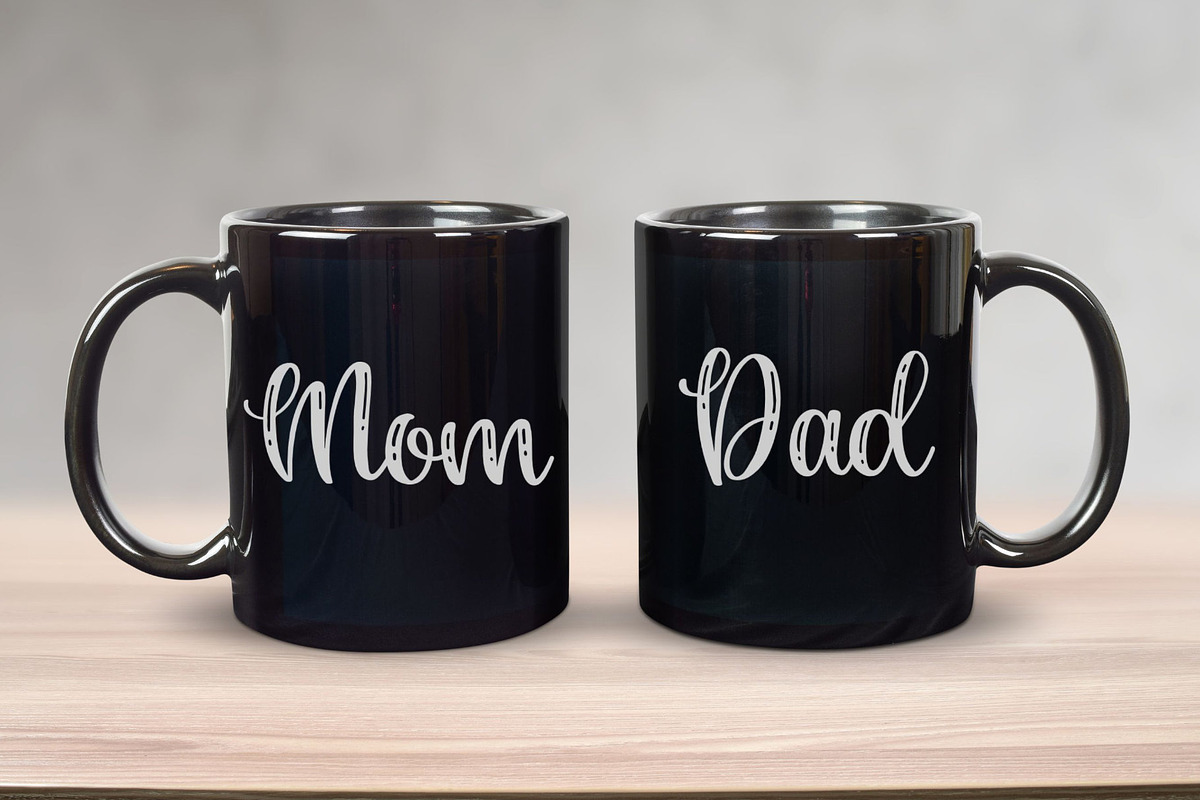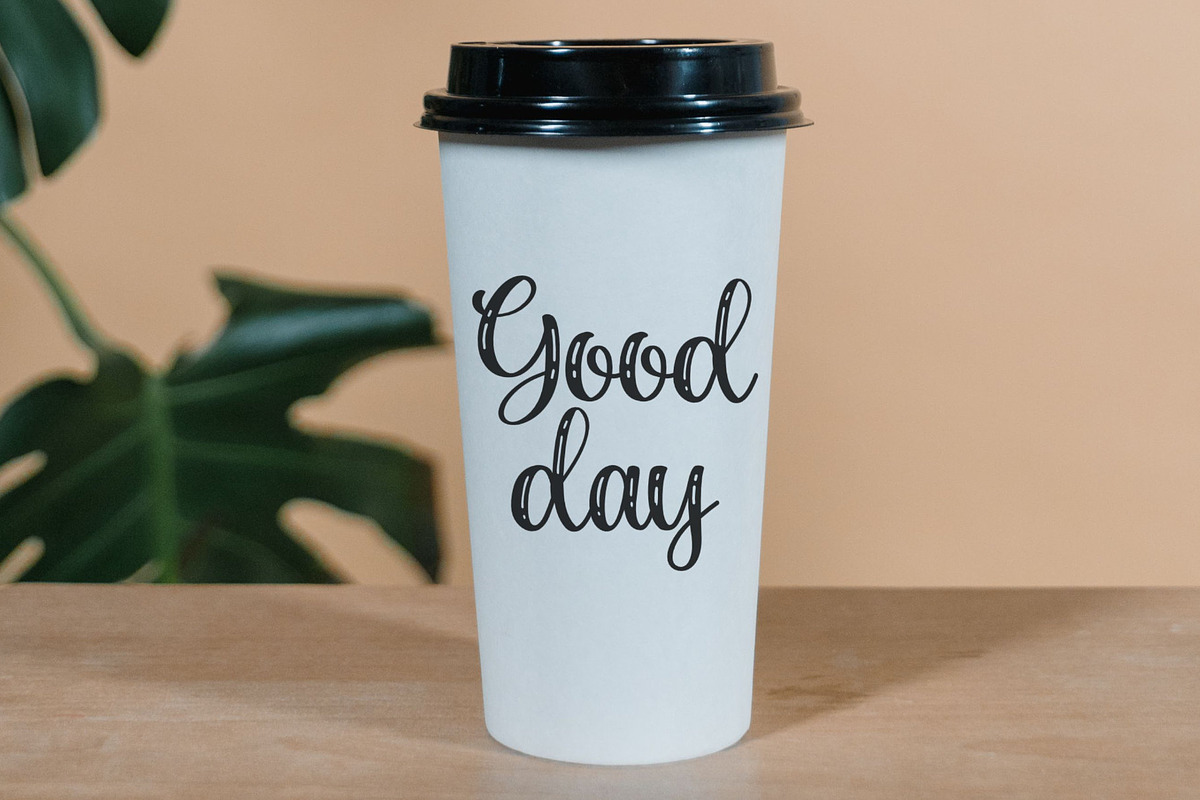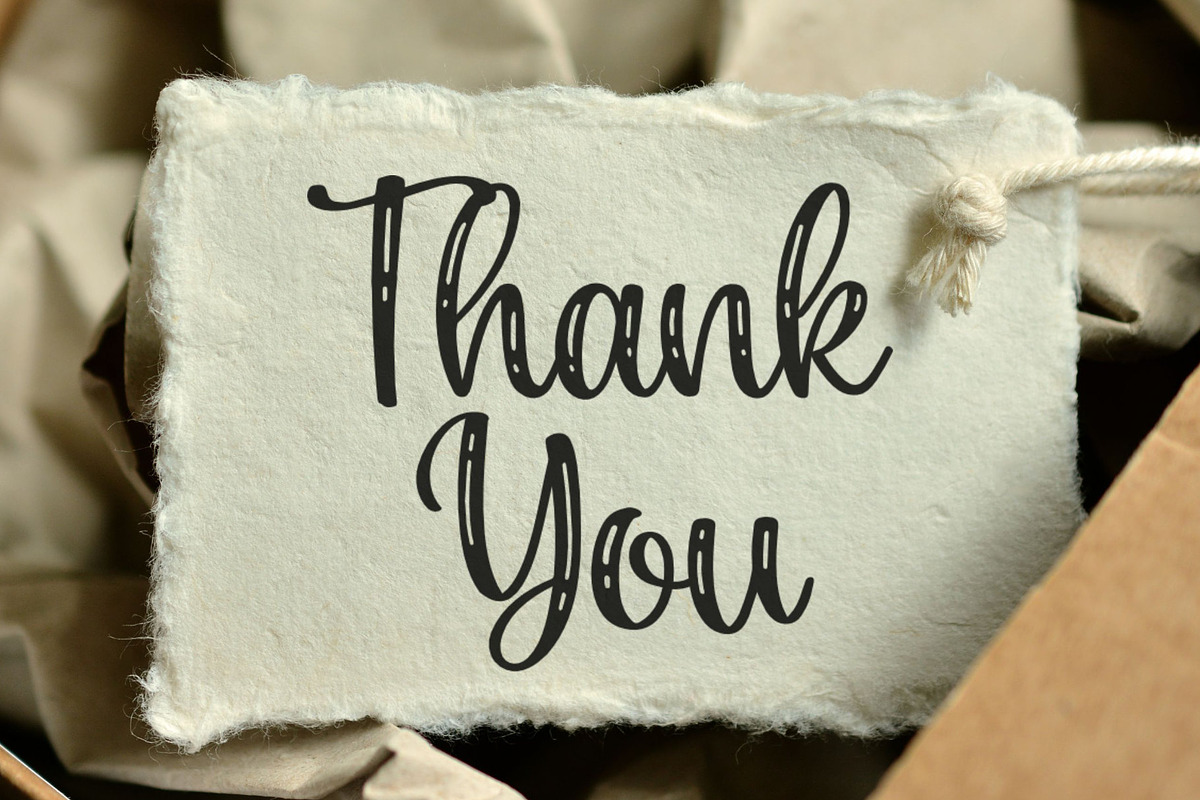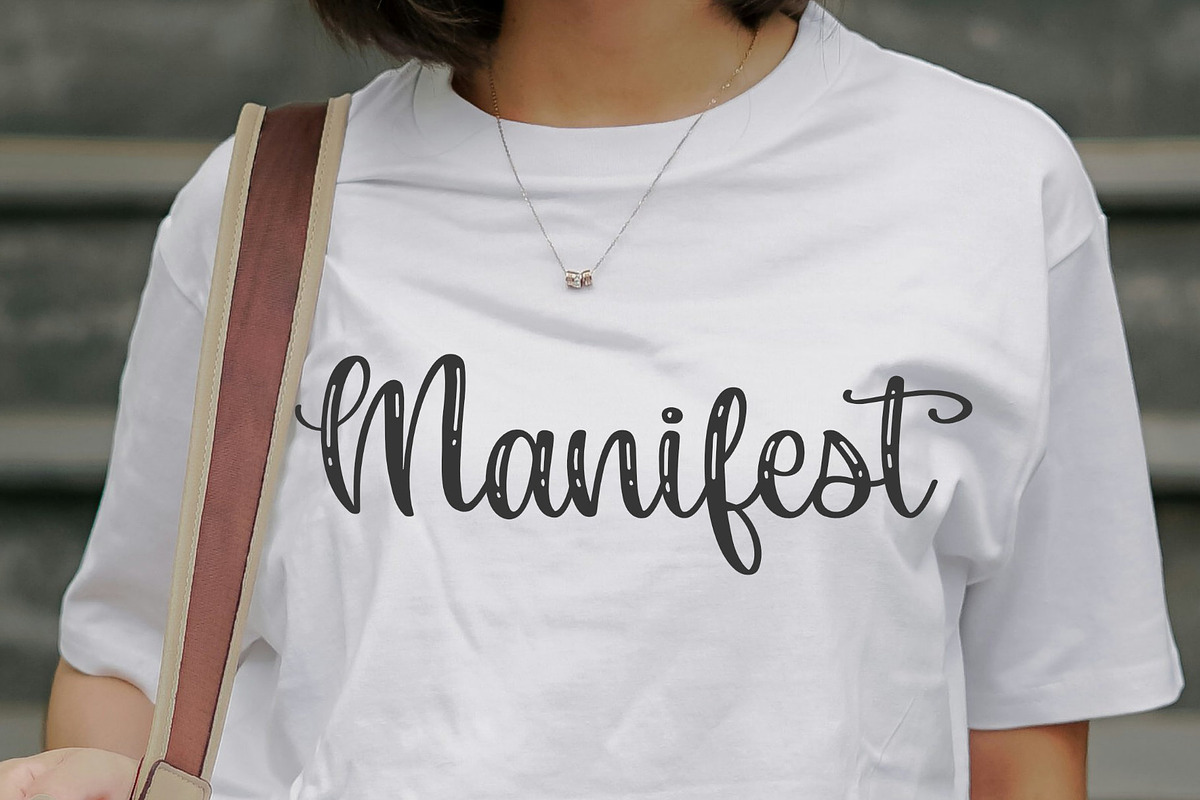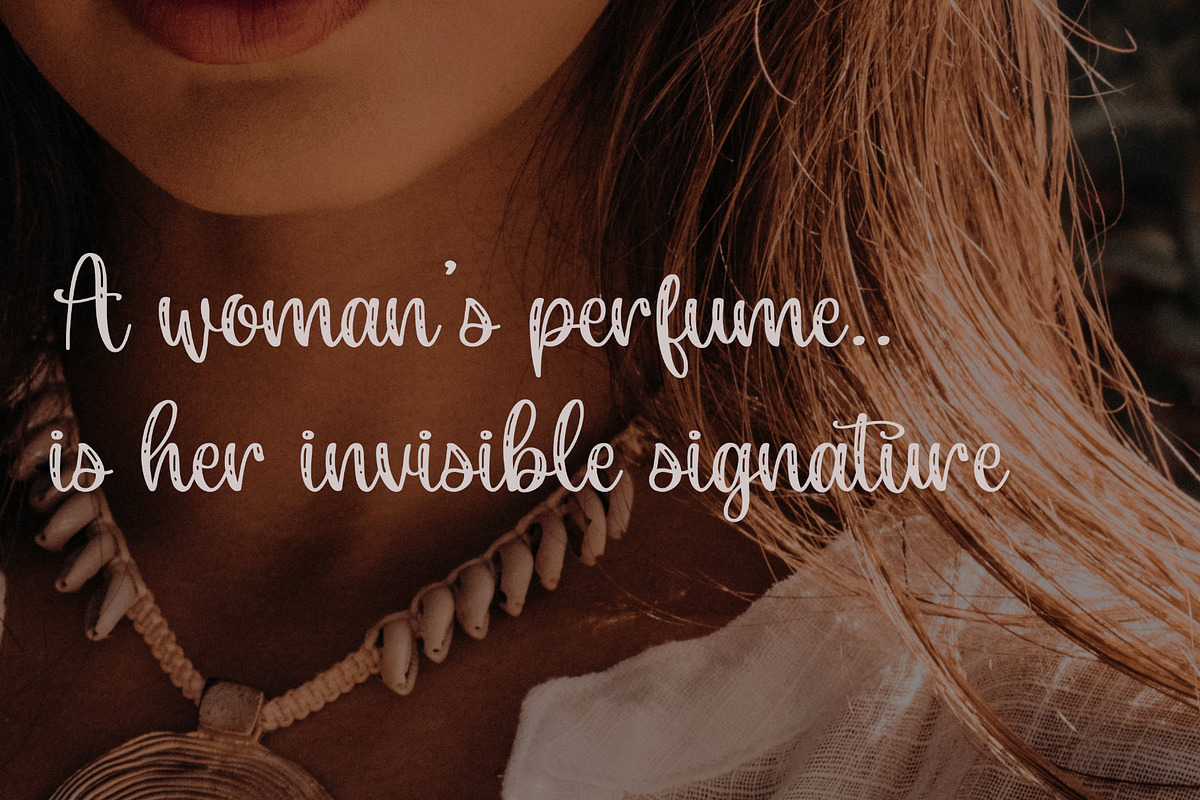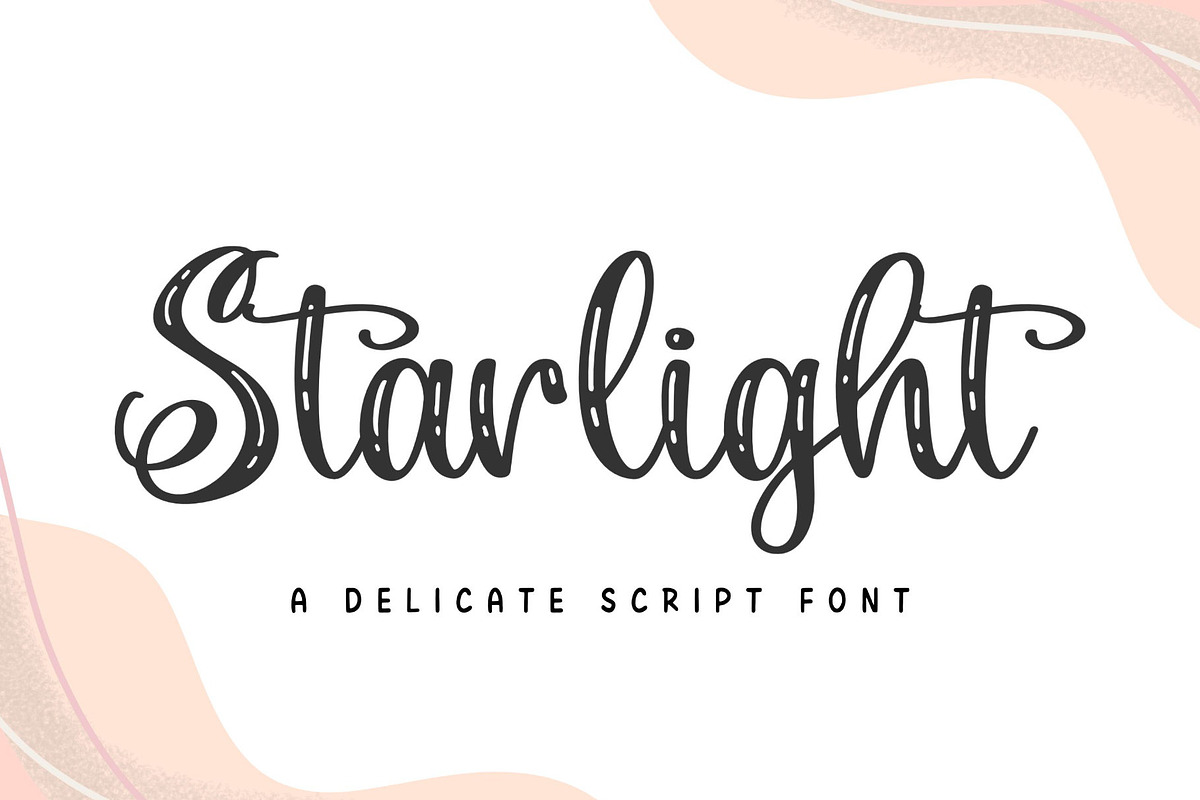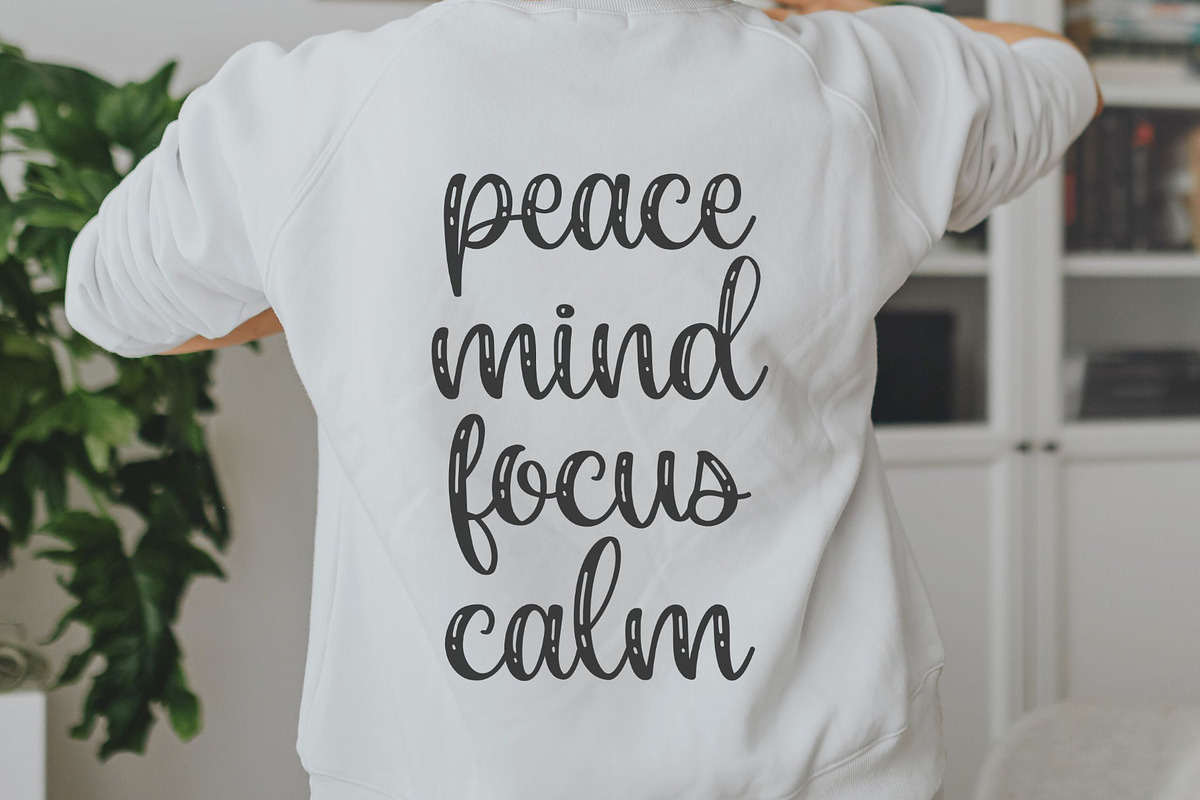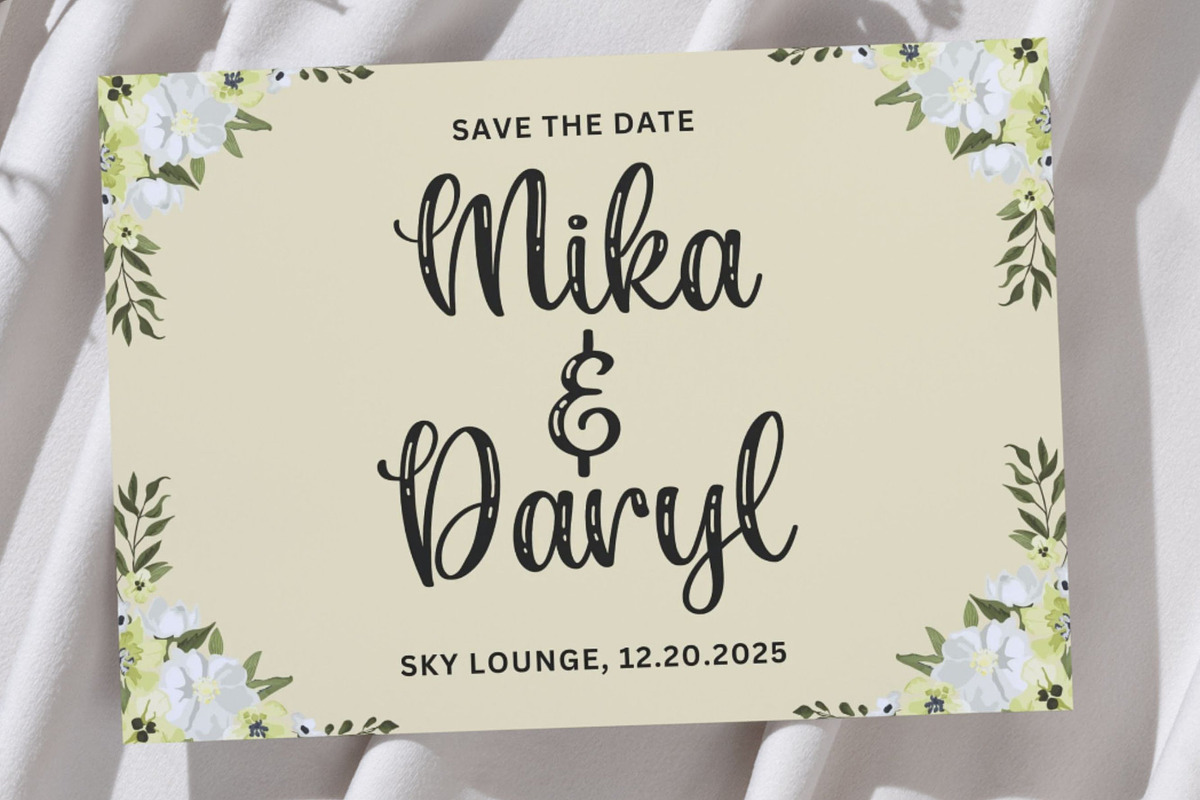
Starlight – Elegant Feminine Script
Starlight is a delicate and graceful script font designed to elevate your branding, wedding invitations, product packaging, and any design that calls for a soft, feminine touch. With flowing curves and a natural handwritten feel, Starlight brings emotional warmth and elegance to every project.
💖 Key Features:
- Smooth, professional hand-lettered style
- Perfect for logos, quotes, social media, and stationery
- Multilingual support included
- Bonus ligatures & alternates for creative flexibilit
🎯 Why Choose Starlight? This font isn’t just beautiful—it’s built for impact. Crafted with attention to detail and aesthetic harmony, Starlight helps you communicate with clarity and charm. Ideal for brands that want to appear soft yet visually confident.